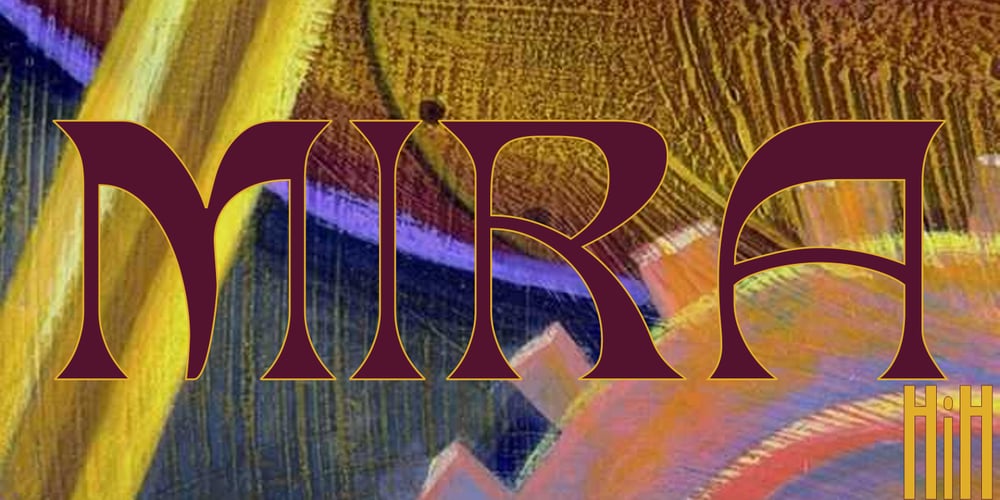
Mira Font Family was designed by published by HiH. Mira contains 1 styles and family package options. Mira is a playful, decorative Art Nouveau font, released by Roos & Jung Foundry in Offenbach AM, Germany about 1902. The exaggerated serifs and the sharp contrast between the thick and thin strokes gives the page a whimsical “salt and pepper” look that is very distinctive. Mira uses our new encoding. The Euro symbol has been moved to position 128 and the Zcaron/zcaron have been added at positions 142/158 respectively. Otherwise, MIRA has our usual idiosyncratic glyph selection, with the German ch/ck instead of braces, Western European accented letters, lower case “o” and “u” with Hungarian umlaut and our usual Hand-in-Hand symbol. In addition, black-letter-style upper case “H” and “T” characters are included. Download the PDF Type Specimen for locations.